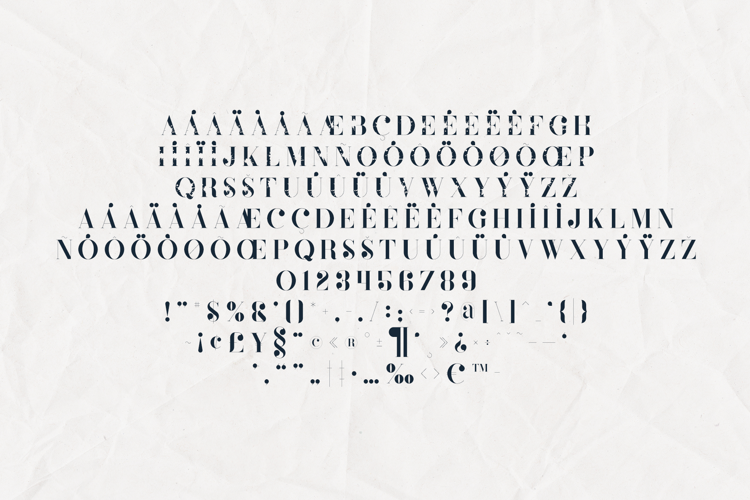
Patented Ramesh - Royal Serif Font
Patented Ramesh - Royal Serif Font, a lightweight elegance in romantic curves with a glitchy and fluid aesthetic. This font is good for logo design, Social media, Movie Titles, Books Titles, short text even long text letters, and good for your secondary text font with the script, sans, or serif.
To make it look more unique, here we prepared some ligatures:ab ah am an ap ar as ca cb cf ch ci ck cl cm cn cp cr cs cx db dh dm dn dp dr ea eb ef eh ei ek el em en ep er es ex ff ga gf gi gm gn gr gs gu hs ka kc ke kg ko ks ky ns ms ot ra sa ss tc te to qb qh qm qn qr ub uh um un ui ur xs xg xa xc xe xo zs zc ze zo fi fl
Include Fancy Style on Every Uppercase and Some Lowercase
Patented Ramesh is also included full set of:- Uppercase and Lowercase letters
- Special Ligatures
- Numerals & Punctuation
- Accented characters